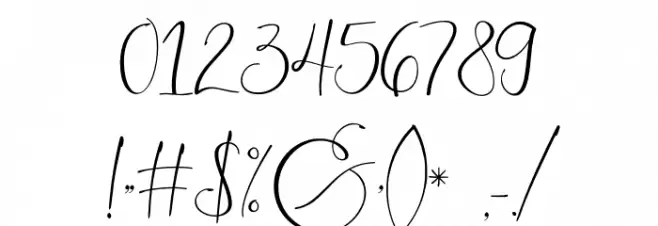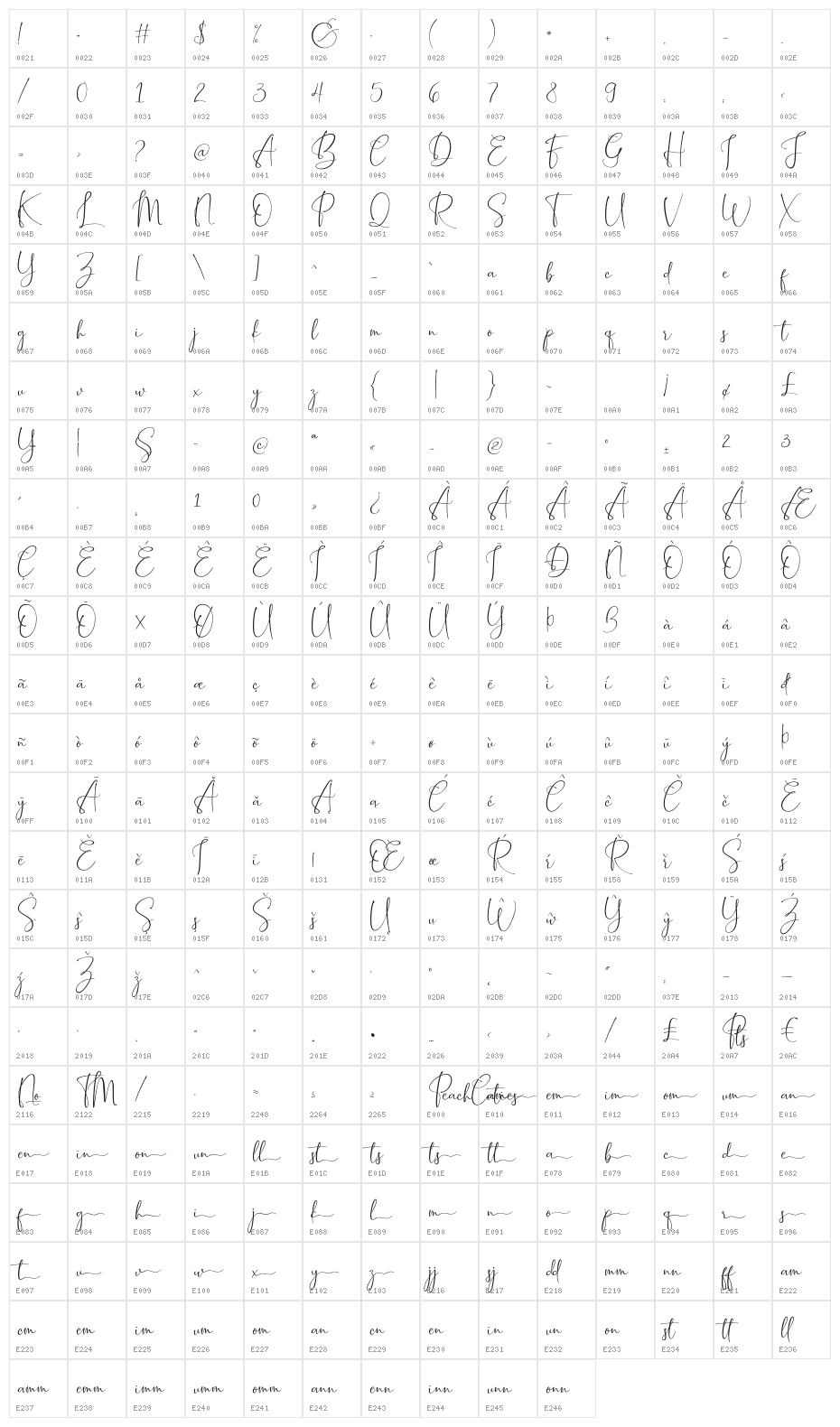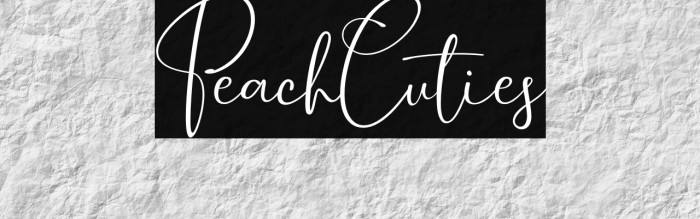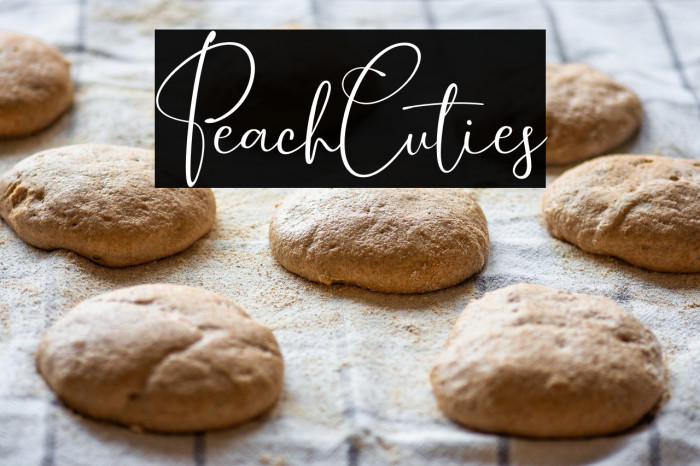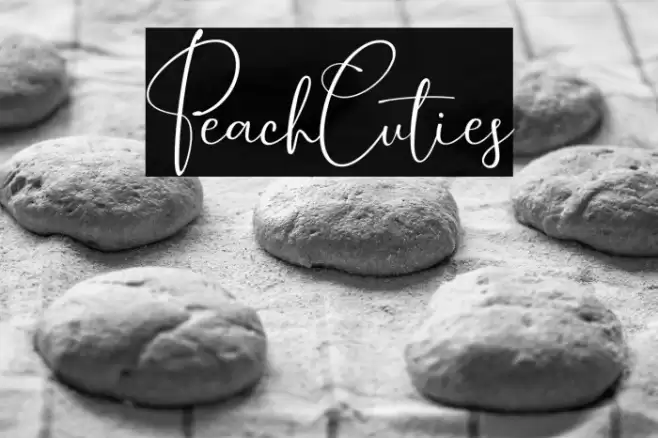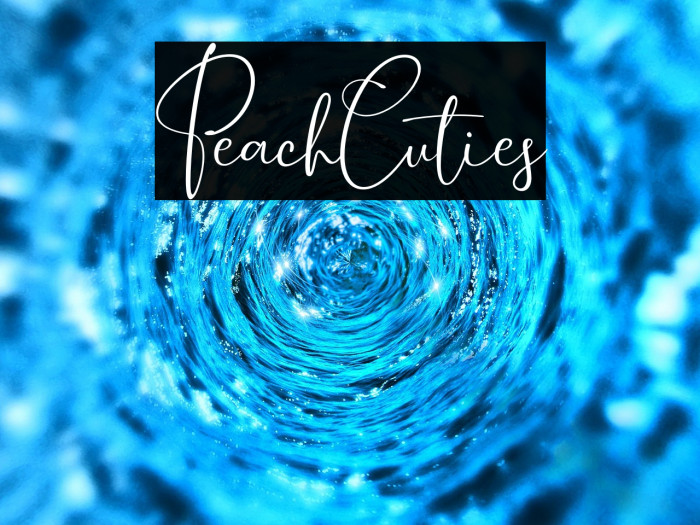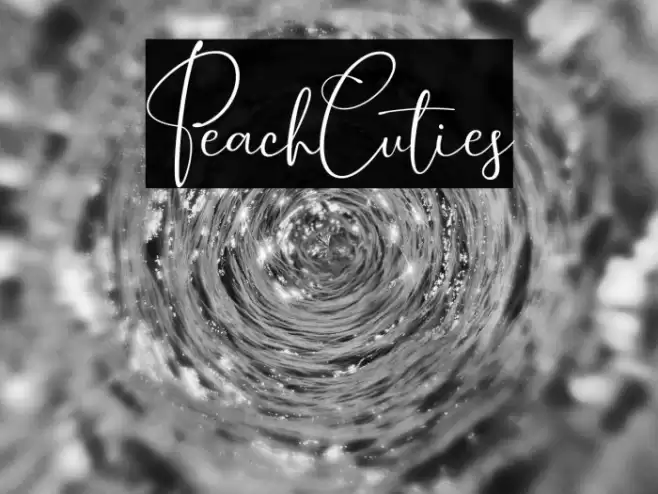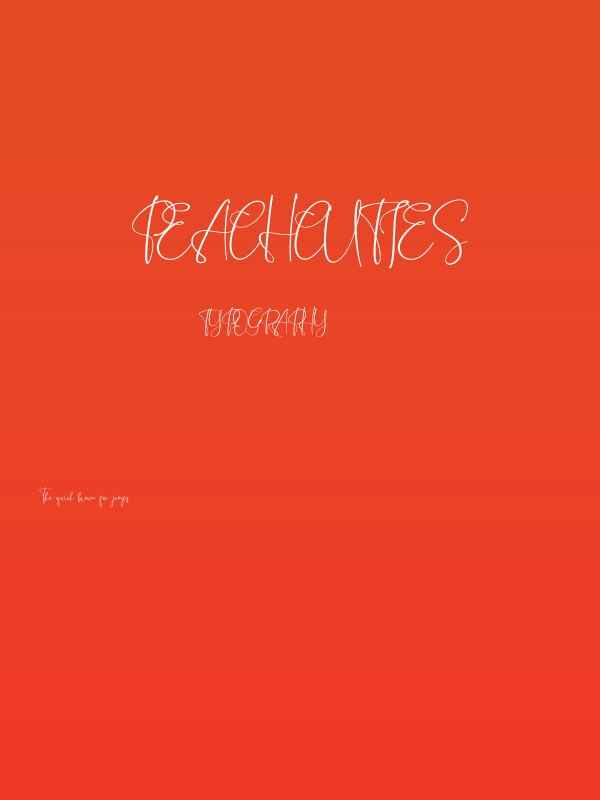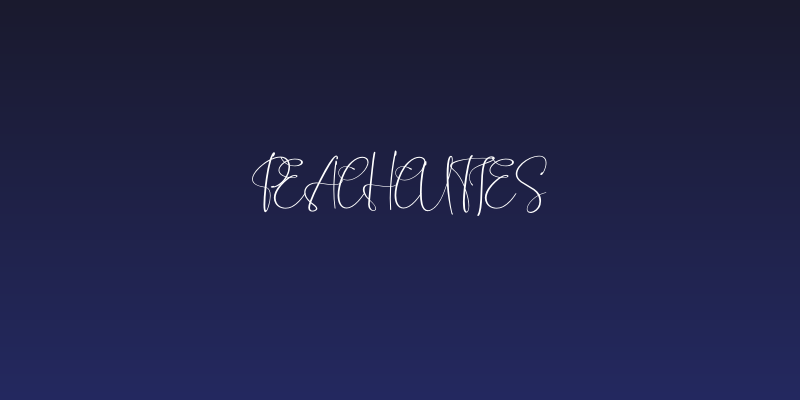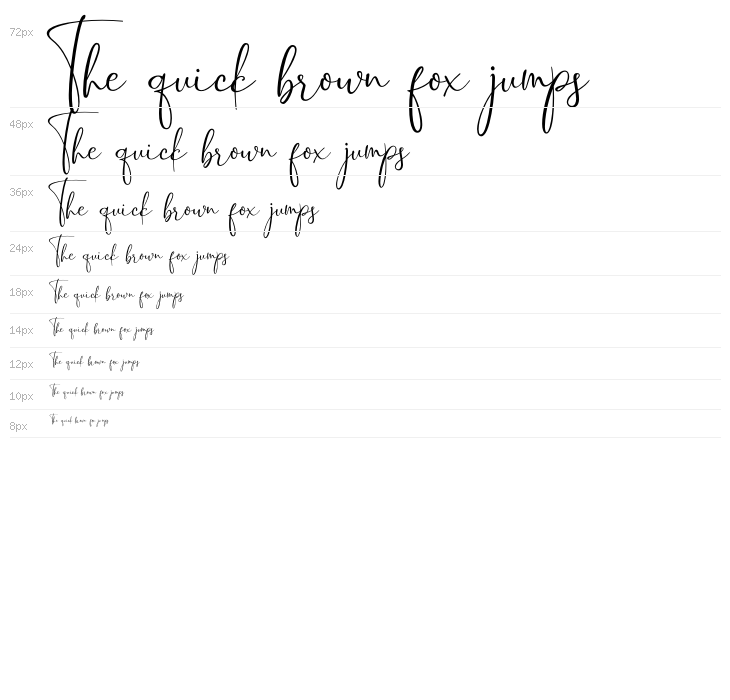
PeachCuties Font
PeachCuties Description
This font features an elegant and flowing script style, characterized by its intricate and looping letterforms. The uppercase letters are particularly ornate, with exaggerated curves and flourishes that give a sense of movement and grace. The lowercase letters maintain a more restrained yet still decorative appearance, offering a nice balance to the overall design. The numerals and special characters are consistent with the script style, adding a cohesive look to the entire set. This font is perfect for projects that require a touch of sophistication and elegance.
| Proposed Projects | Ideal for wedding invitations, elegant branding, greeting cards, and upscale packaging. |